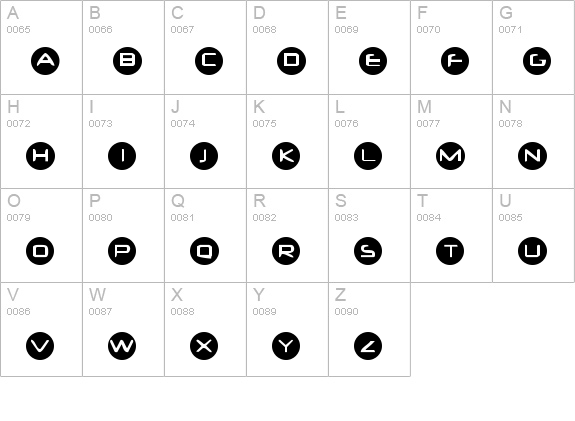
Diskoboll font is a modern and stylish typeface that exudes a sense of elegance and sophistication. With its sleek lines and geometric shapes, this font is perfect for adding a touch of flair to any design project. Whether you're creating a logo, poster, or website, Diskoboll font will make your text stand out with its unique personality. The best part about Diskoboll font is that it is completely free to download. You can easily access this stunning font at FontsMarket.com, where you can browse through a wide selection of high-quality fonts for all your creative needs. Don't miss out on the opportunity to enhance your designs with the striking beauty of Diskoboll font. Download it today and let your creativity shine!